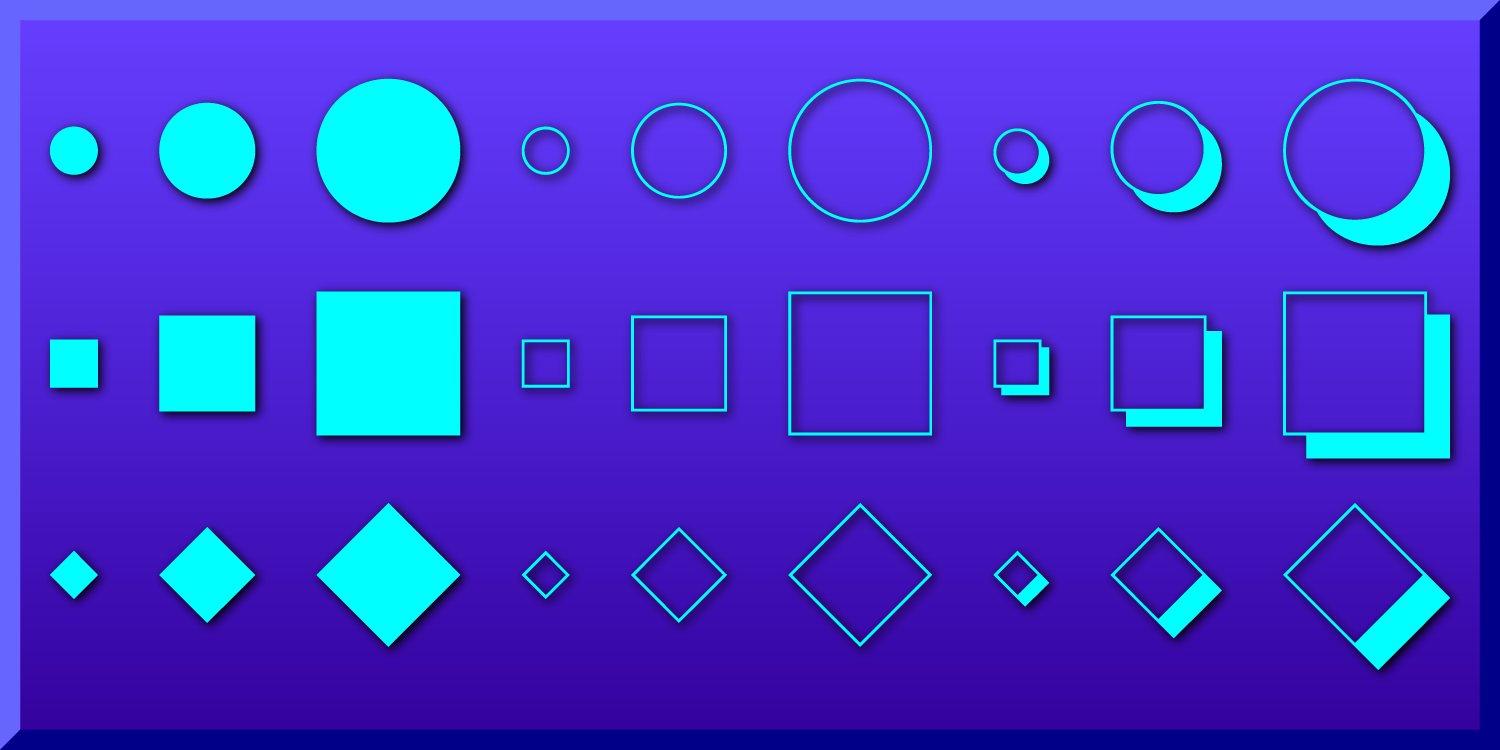
The Basic Bullets Font Free Download is a unique and highly functional choice for projects that require a minimalist and direct aesthetic. Its clean, geometric shapes and straightforward design make it perfect for creating a sense of clarity and order. This font is especially effective for adding simple, non-textual elements to your designs, such as dividers, bullet points, and decorative accents. It's a great fit for modern presentations, infographics, and technical manuals where clean visual hierarchy is essential. The Basic Bullets Font provides a layer of subtle sophistication, ensuring your message is delivered with precision and a contemporary feel.
What makes this font so exciting is its focus on utility and form. The Basic Bullets Font is not a traditional letter-based typeface but a collection of simple, elegant symbols that can be used to enhance any project. These basic geometric shapes, such as circles, squares, and lines, are designed to work harmoniously with any other font, allowing you to create a cohesive and professional look without clutter. It's a typeface that works hard behind the scenes to improve the overall readability and visual appeal of your design, making it an invaluable asset for anyone seeking a clean and organized aesthetic.
The Basic Bullets Font family, while focused on a single function, can offer various styles or weights to give you more creative flexibility. This can include a solid version, an outlined version, or different densities of the symbols. This range of options allows you to build a cohesive typographic system that is consistent across all your materials. The Basic Bullets Font Free Download is an excellent opportunity to explore these different styles and see how they can work together to create a powerful and unified design.
By choosing the Basic Bullets Font Free Download, you’re opting for a typeface that embodies simplicity, functionality, and modern elegance. It’s a font that works tirelessly to ensure your projects are not only beautiful but also highly effective at communicating a clear and concise message.